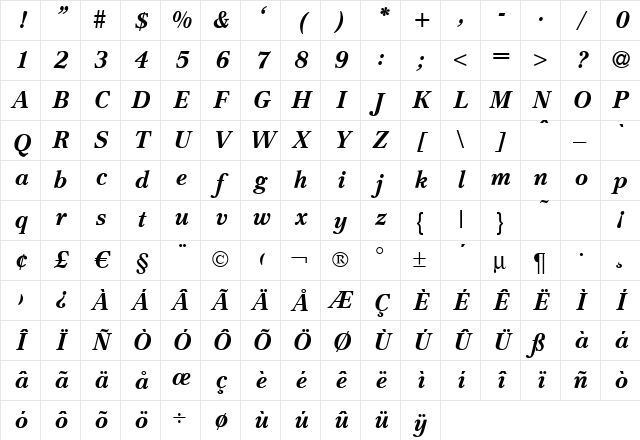
C820-Roman BoldItalic
Design Context for C820-Roman
C820-Roman is a composed and adaptable typeface that performs quietly and consistently across a wide range of design contexts. The slanted form adds forward momentum and visual energy. Its bold stroke weight gives it real presence on the page.
Pro Tip: Use C820-Roman for emphasis, pull quotes, and subheadings where its slanted energy can add rhythm to the layout.